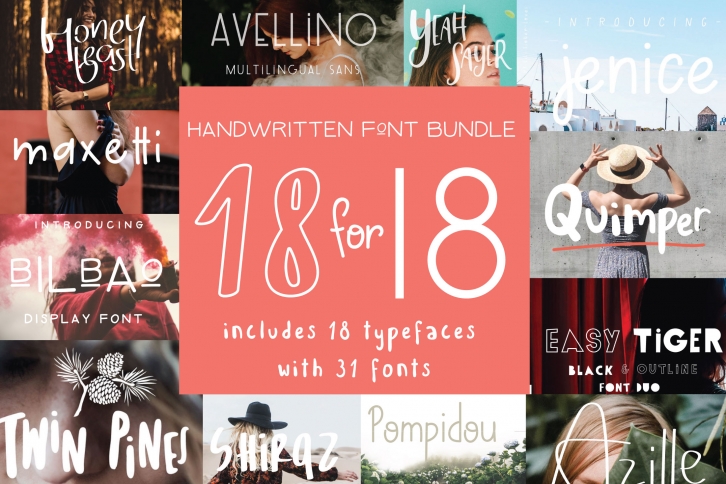
18 for 18 is a beautiful font that was designed by lili lieber. It's a great choice for designers and creatives who need such a font. It was released on December 29, 2017 and the file size is 4.34 MB. 18 for 18 may give a more youthful, expressive and casual look to your project. It is a very beautiful, refined, elegant, and high-quality font.